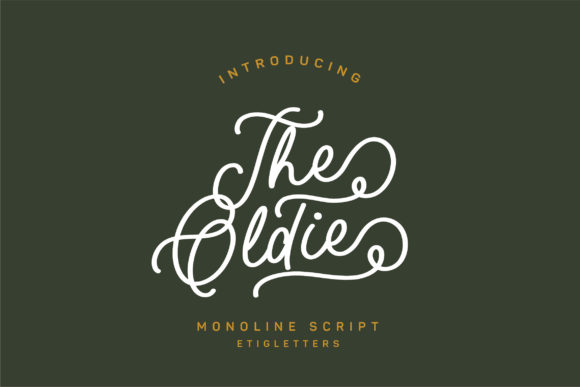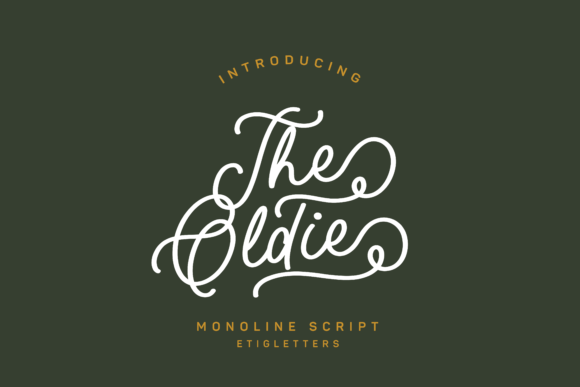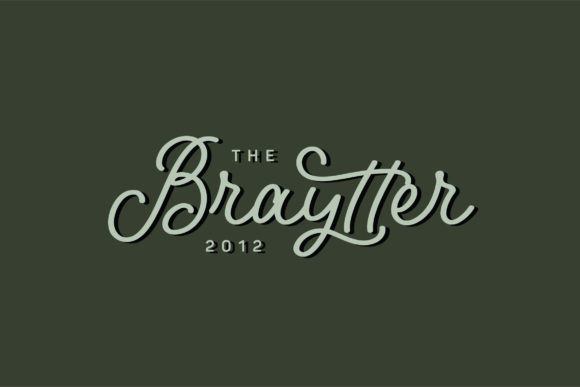
About The Oldie Script Font
The Oldie Script is a beautiful, well balanced and vintage styled script font. It is defined by smooth curves and is perfect for fashion branding or editorial designs. Add it confidently to your projects, and you will love the results. The Oldie Script is PUA encoded which means you can access all of the glyphs and swashes with ease!Â